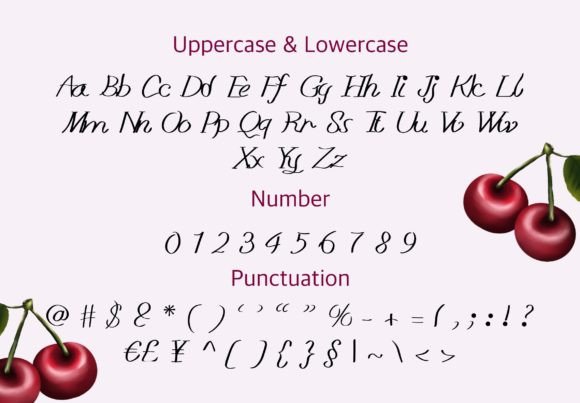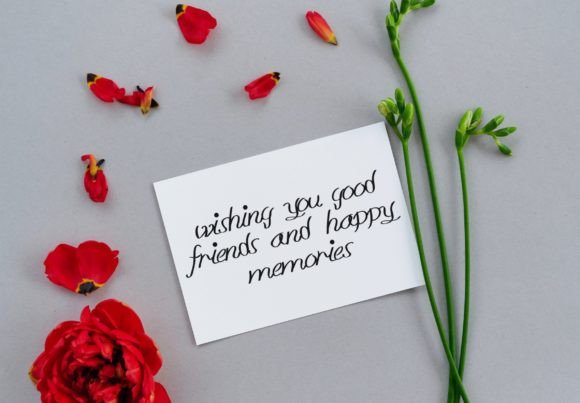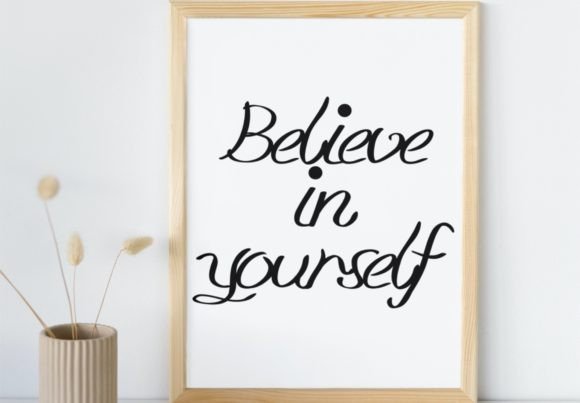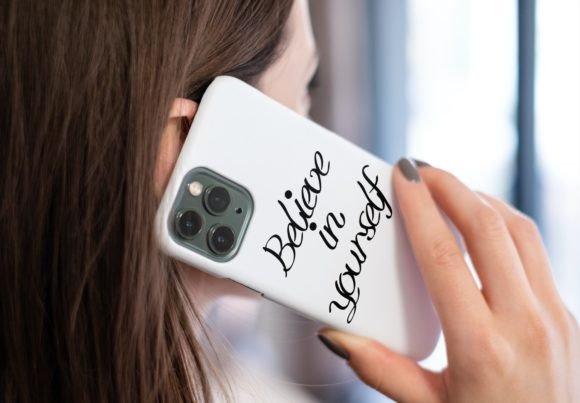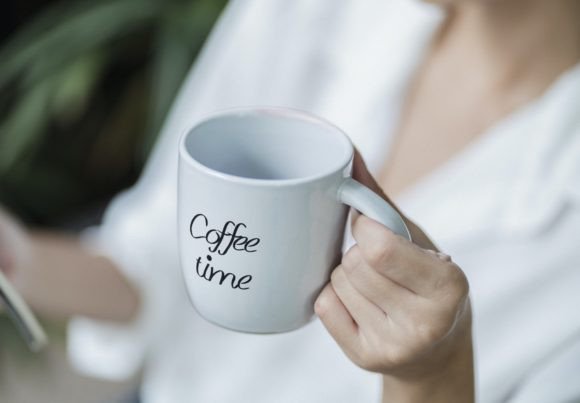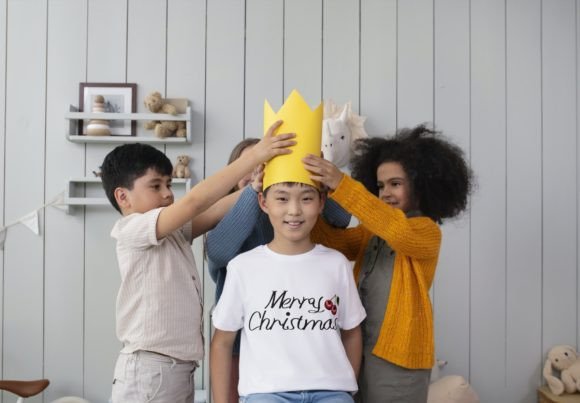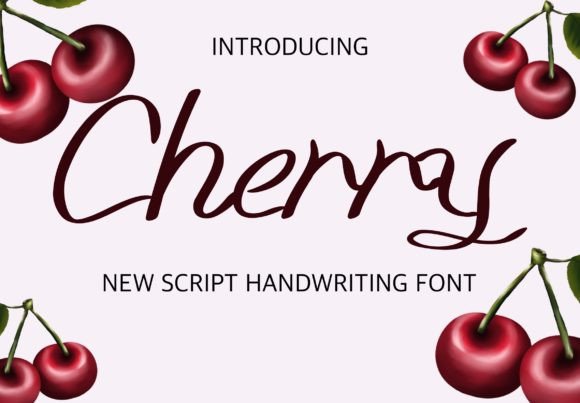
Introducing Cherry Font: The Perfect Addition to Your Design Projects
Are you looking for a beautiful and versatile handwritten font to elevate your design projects? Look no further than Cherry Font! This lovely and simple font is perfect for a wide range of applications, from Christmas projects and invitations to social media posts and product packaging.
What is Cherry Font?
Cherry Font is a carefully crafted handwritten font that exudes a sense of warmth and elegance. Its simple yet charming design makes it an excellent choice for designers and crafters who want to add a personal touch to their creations. Whether you’re working on a festive holiday project or a special invitation, Cherry Font is sure to impress.
Why Choose Cherry Font?
So, what sets Cherry Font apart from other fonts? Here are just a few reasons why designers and crafters love this font:
- Versatility: Cherry Font is incredibly versatile and can be used for a wide range of projects, from digital designs to print materials.
- Elegance: The font’s elegant design makes it perfect for special occasions, such as weddings, anniversaries, and holidays.
- Readability: Cherry Font is easy to read, even in small sizes, making it ideal for use on social media, business cards, and other applications where legibility is key.
- Uniqueness: Cherry Font has a unique and distinctive design that will set your projects apart from the crowd.
Perfect for Christmas Projects
It’s the most wonderful time of the year! Cherry Font is the perfect addition to your Christmas projects, including:
- Christmas party decorations and displays
- Gift tags and labels
With Cherry Font, you can add a touch of festive flair to your designs and make them truly special.
Ideal for Invitations and Stationery
Cherry Font is also an excellent choice for invitations, stationery, and other paper goods. Its elegant design makes it perfect for:
- Birthday party invitations and decorations
- Anniversary cards and gifts
- Personalized stationery and letterhead
Whether you’re designing for a special occasion or just want to add a personal touch to your correspondence, Cherry Font is a great choice.
Great for Product Design and Packaging
Cherry Font is not just limited to digital designs and print materials. It’s also perfect for product design and packaging, including:
- Labels and stickers
- Product tags and cards
- Packaging and shipping labels
- Brand identities and logos
With Cherry Font, you can add a touch of personality to your products and make them stand out on store shelves.
Tips for Using Cherry Font
Here are a few tips for getting the most out of Cherry Font:
- Experiment with colors: Cherry Font looks great in a variety of colors, so don’t be afraid to experiment and find the perfect hue for your project.
- Mix and match: Combine Cherry Font with other fonts and design elements to create a unique and eye-catching design.
- Pay attention to spacing: Make sure to adjust the spacing between letters and words to ensure that your text is easy to read and visually appealing.
| Font Name | Cherry Font |
| Author | KisbyArt |
Cherry Font is a versatile and elegant handwritten font that’s perfect for a wide range of design projects. Its simple yet charming design makes it an excellent choice for designers and crafters who want to add a personal touch to their creations. Whether you’re working on a Christmas project, invitation, or product design, Cherry Font is sure to impress. So why wait? Add Cherry Font to your design toolkit today and take your creations to the next level!